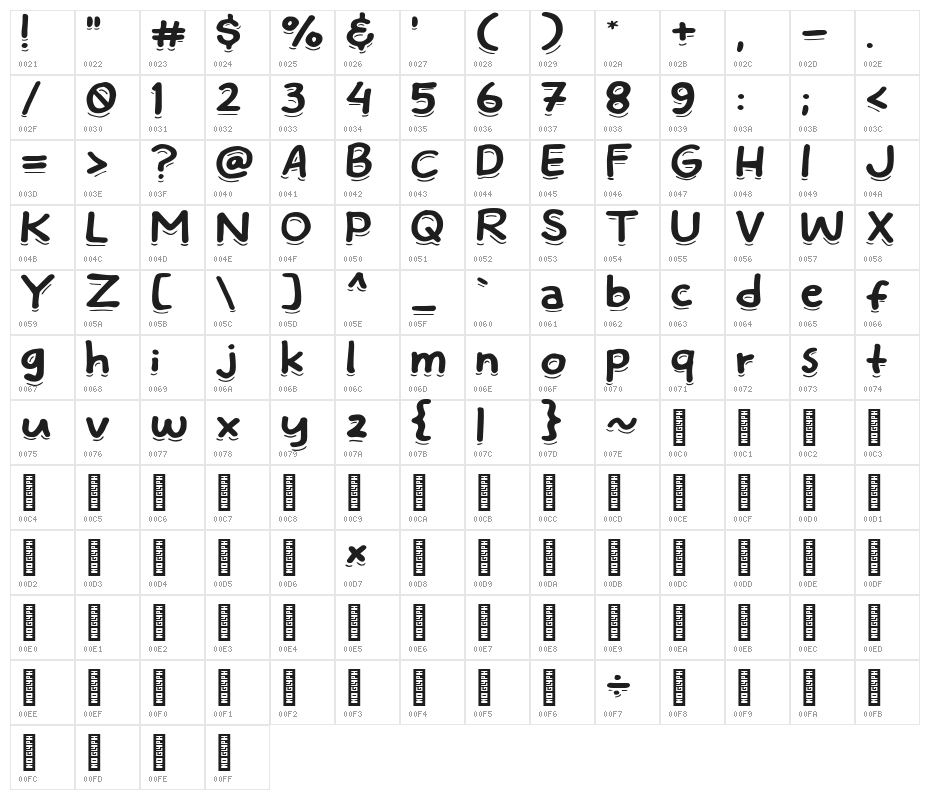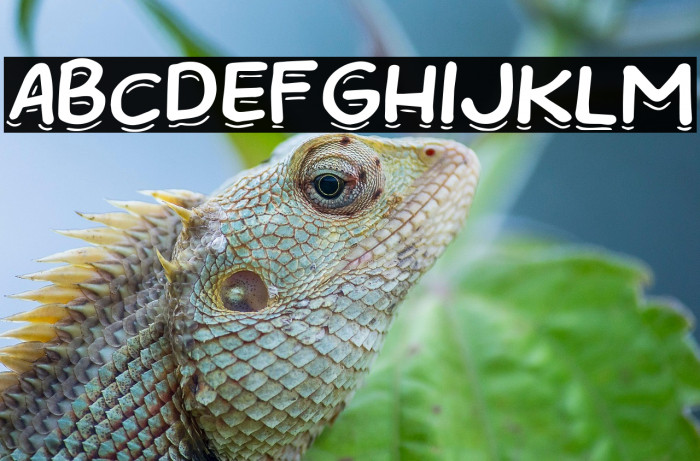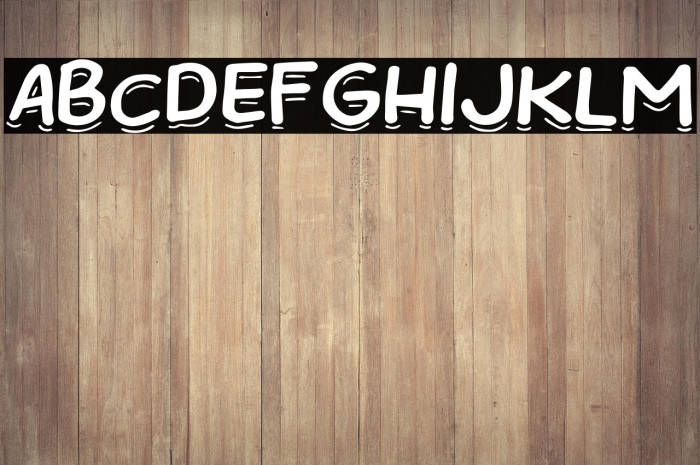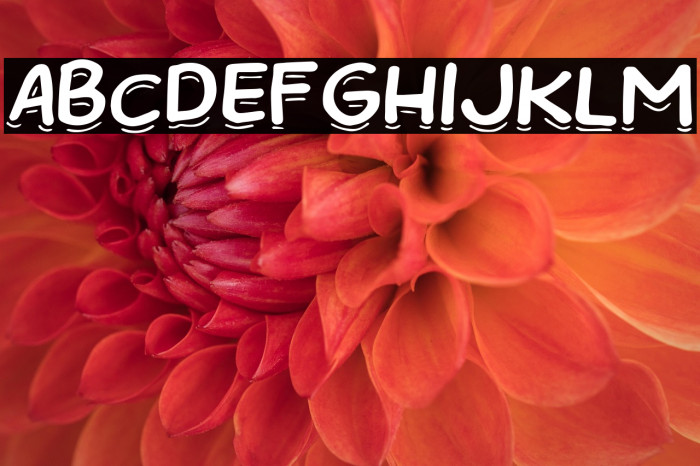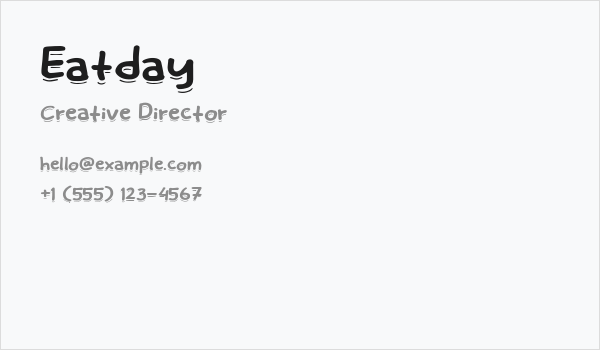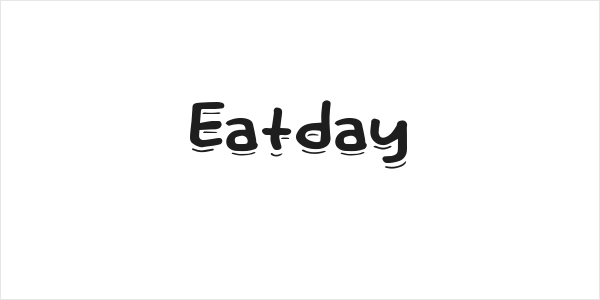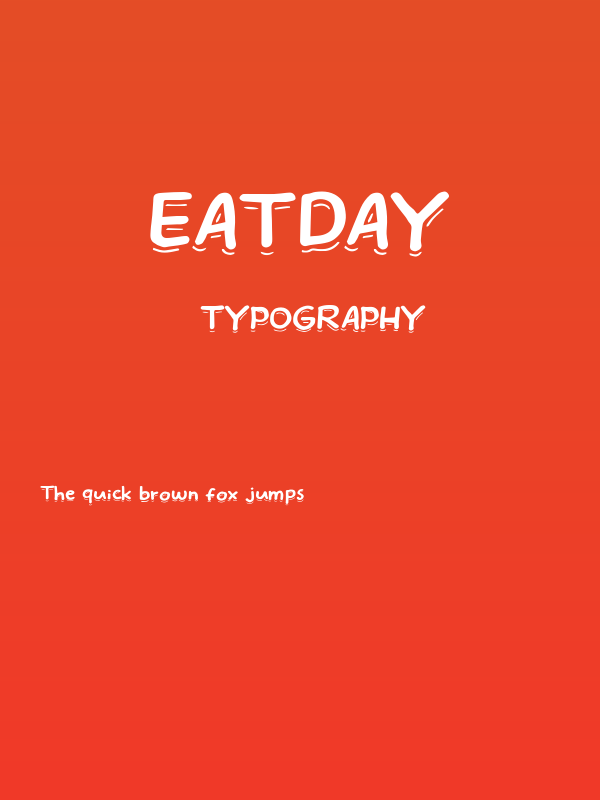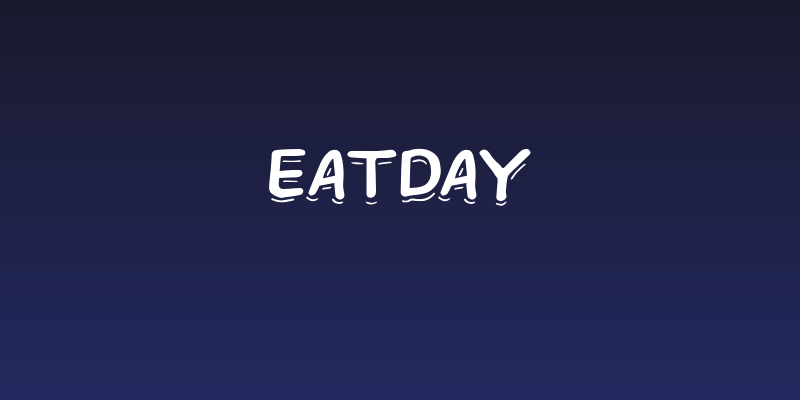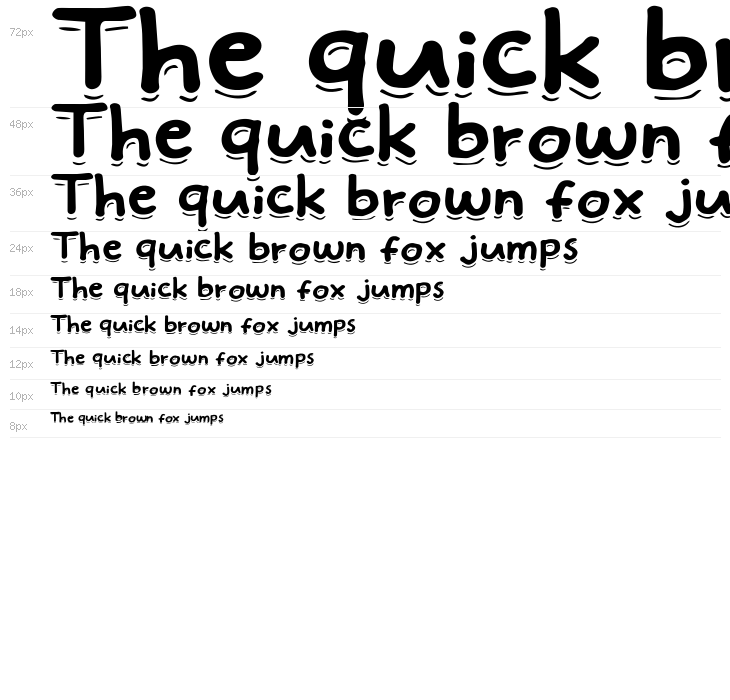
Eatday Font
Eatday Description
This playful and bold font features a hand-drawn style with a cartoonish flair. The characters are rounded and slightly irregular, giving them a whimsical and friendly appearance. The strokes are thick, providing a strong presence on the page, while the subtle shadow effect adds depth and dimension. The font maintains a consistent weight throughout, ensuring readability and uniformity. Its unique style makes it suitable for creative and informal projects, adding a touch of fun and personality to any design.